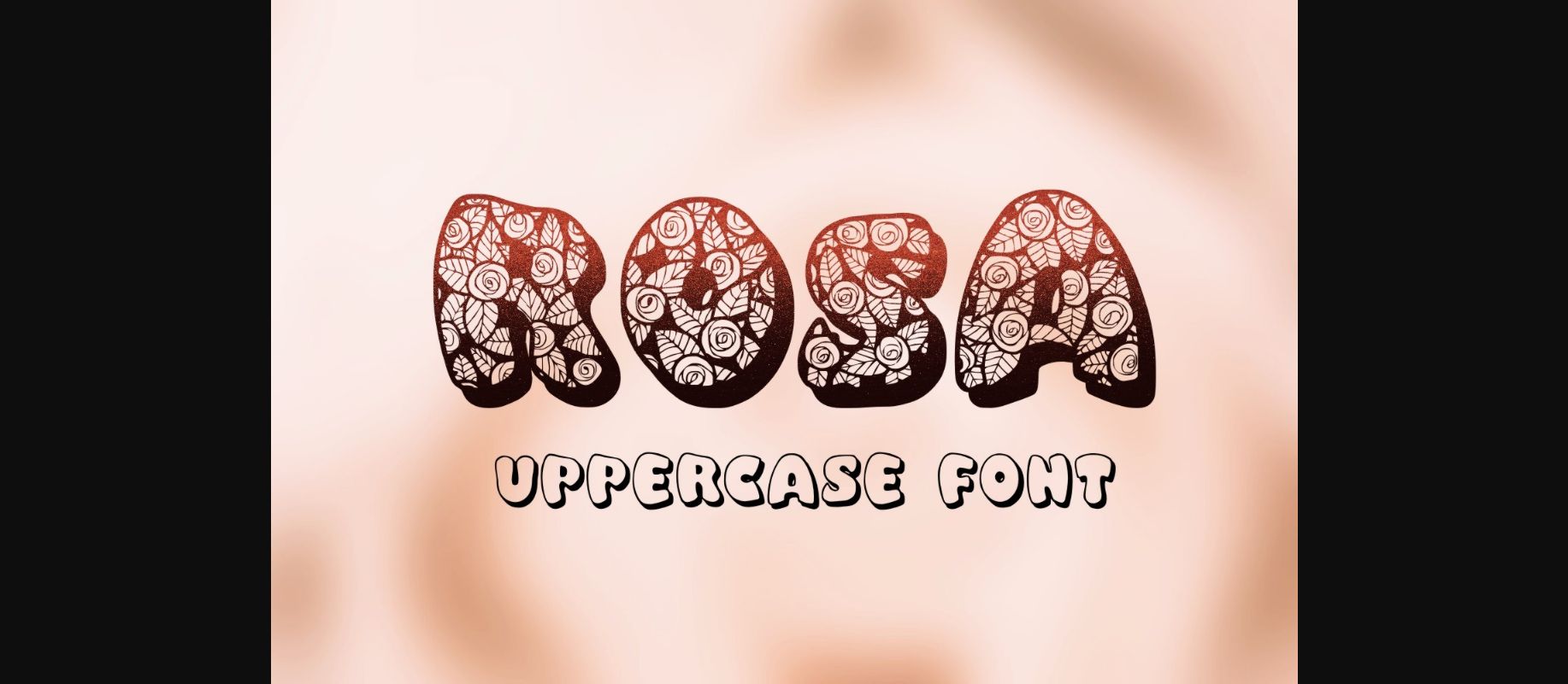
About Rosa Font
Rosa is a hand drawn uppercase typeface, decorated with roses and rose leaves. This beautiful decorative font looks great in monograms style and all together for truly eccentric feel.